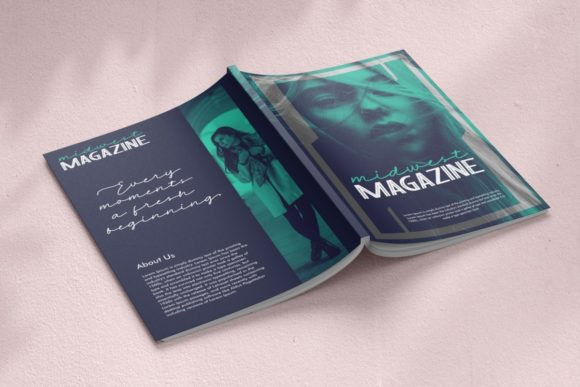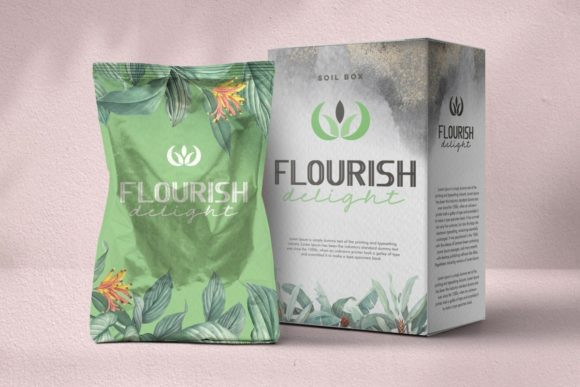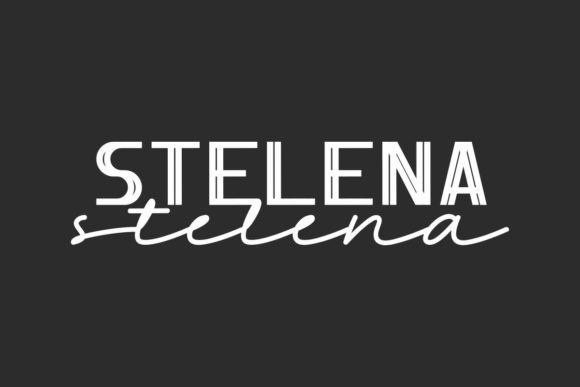
Stelena Script Font
Stelena Script Font consists of two fonts designed to complement each other perfectly. Together or apart, these fonts are ideal for adding a chic and cheery touch to your crafts. This font is PUA encoded which means you can access all glyphs and swashes with ease!